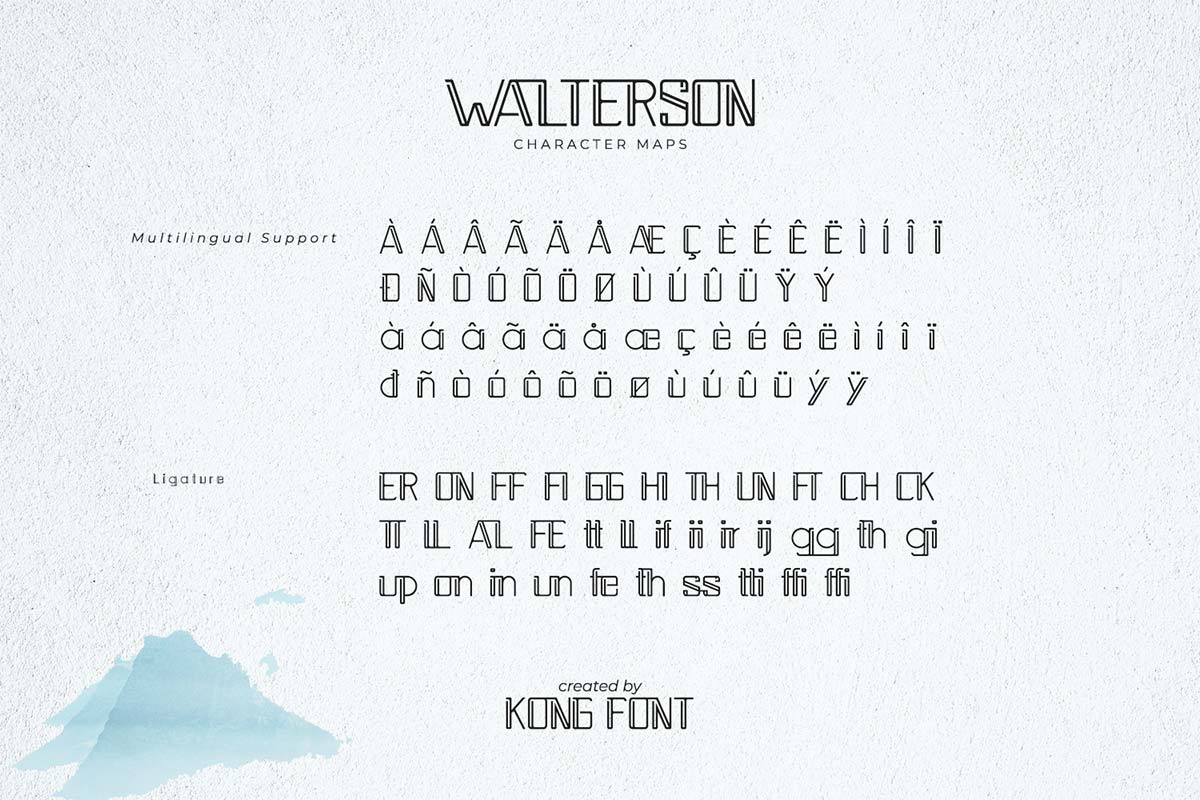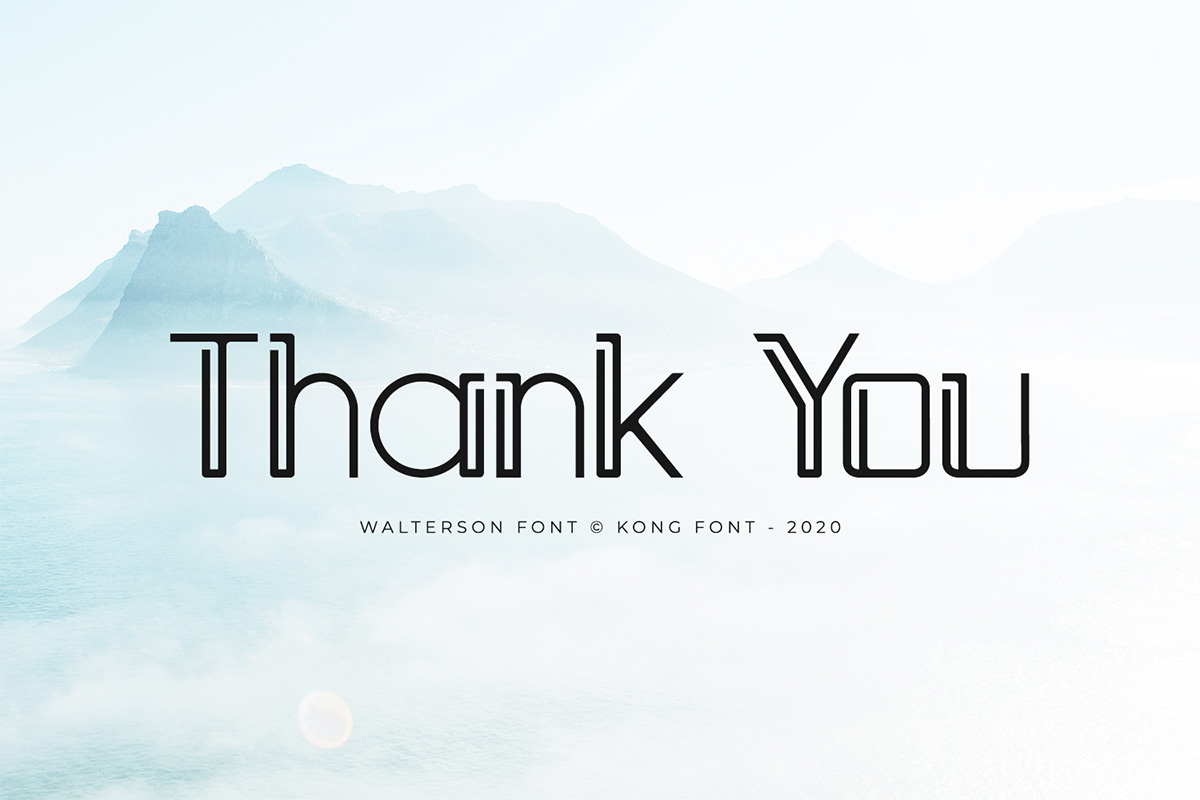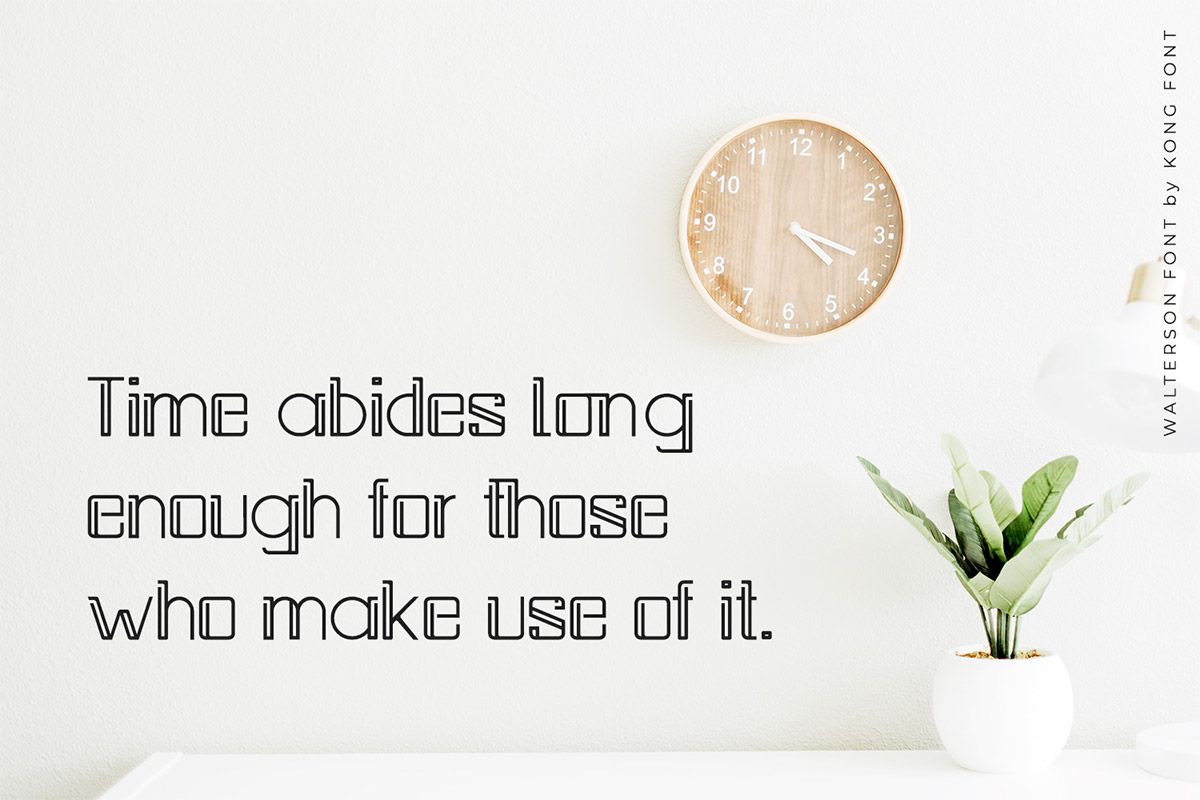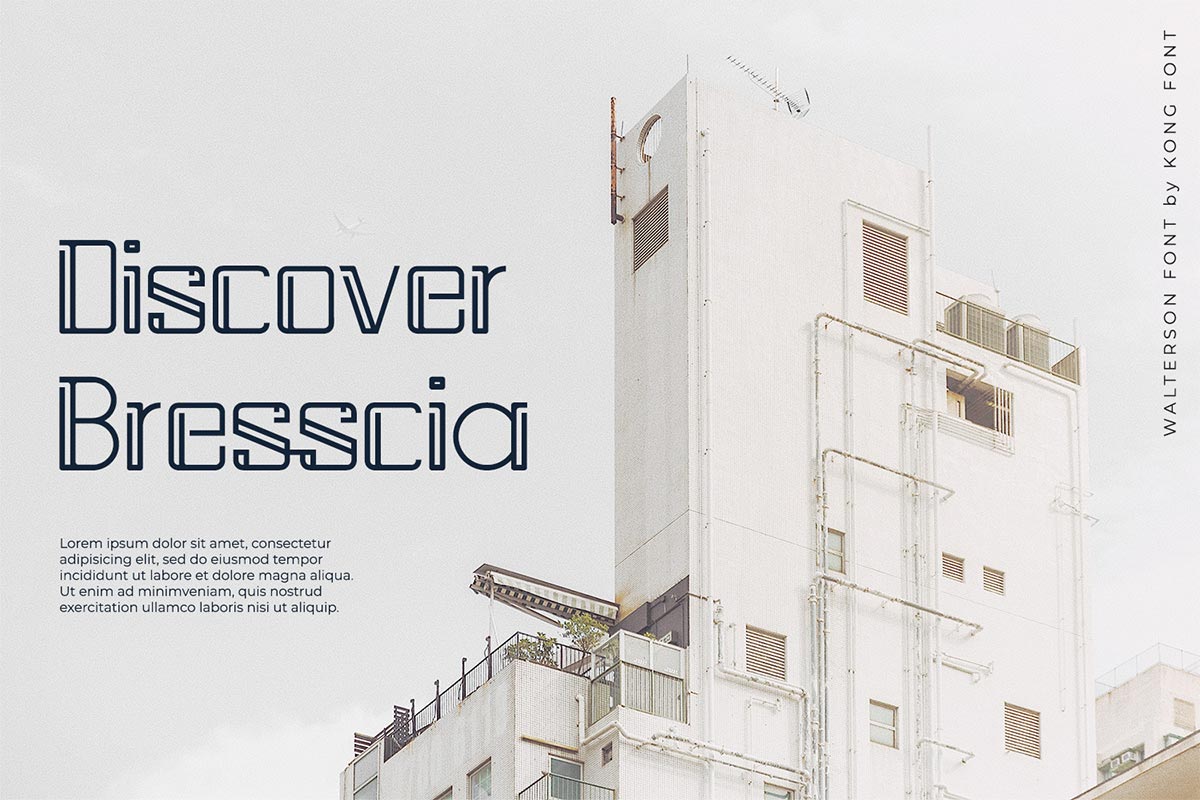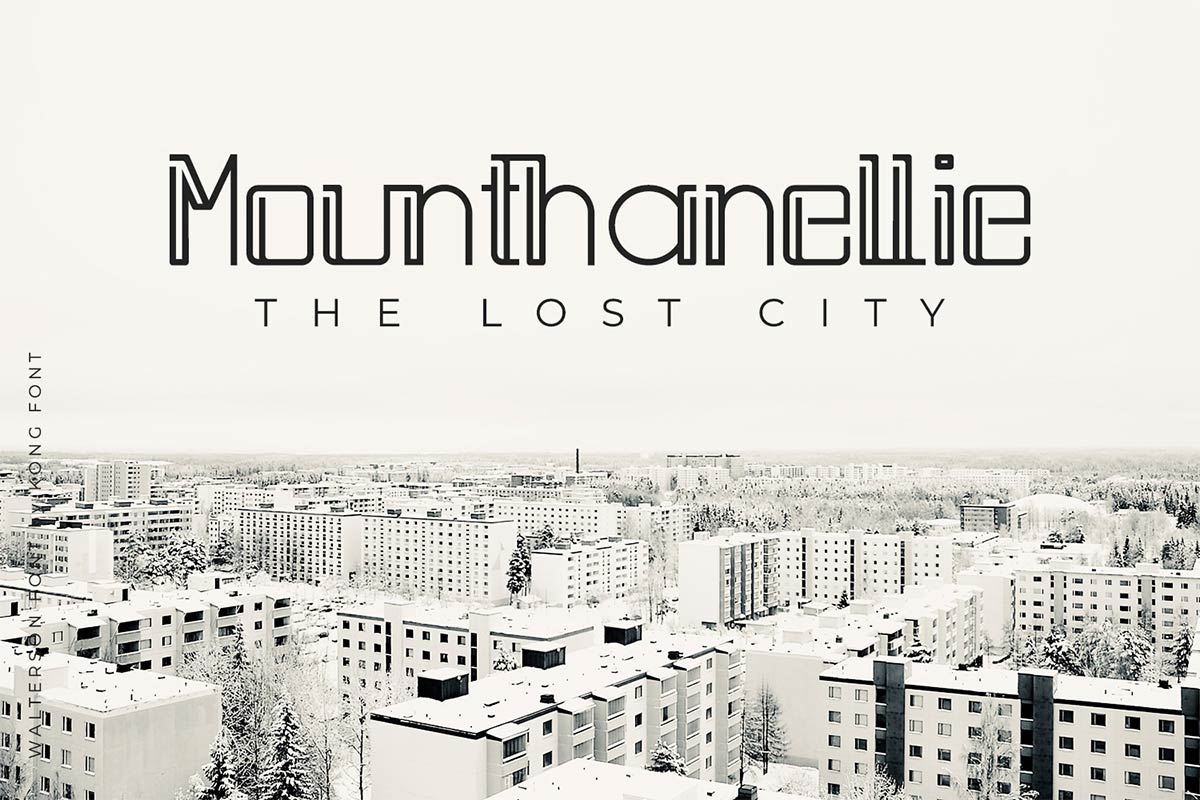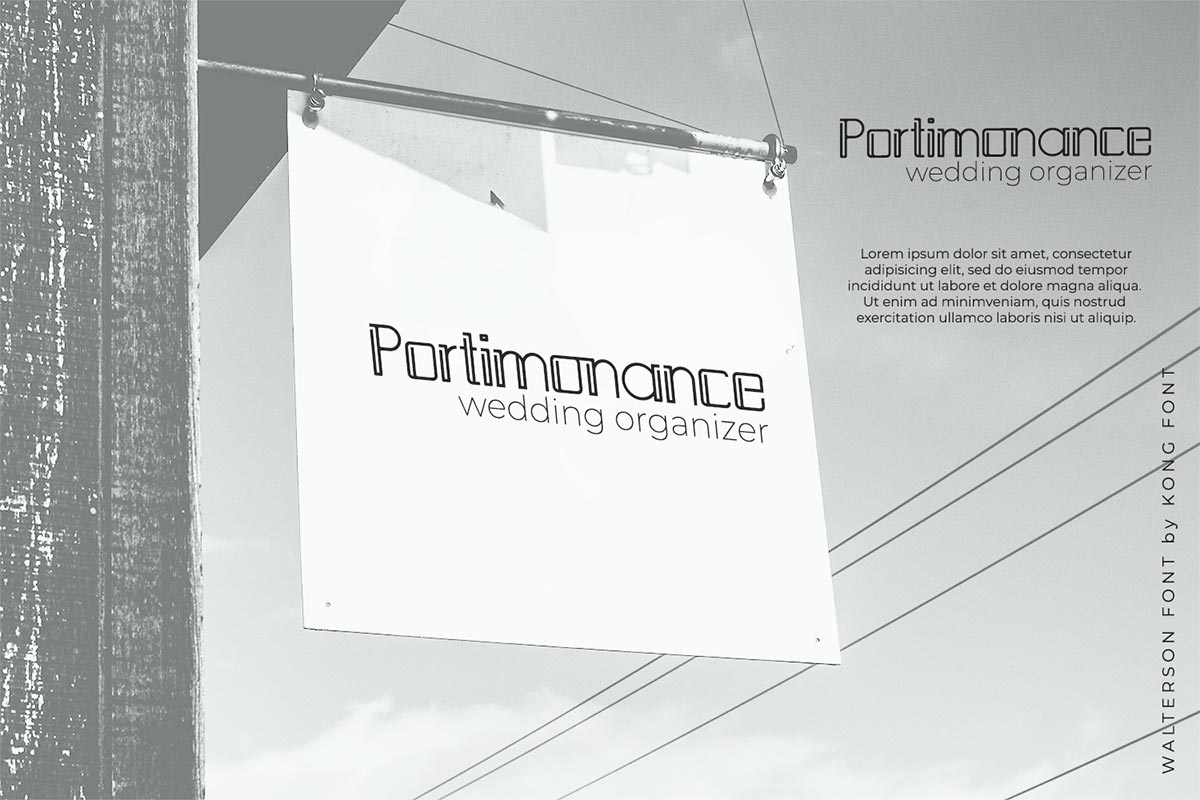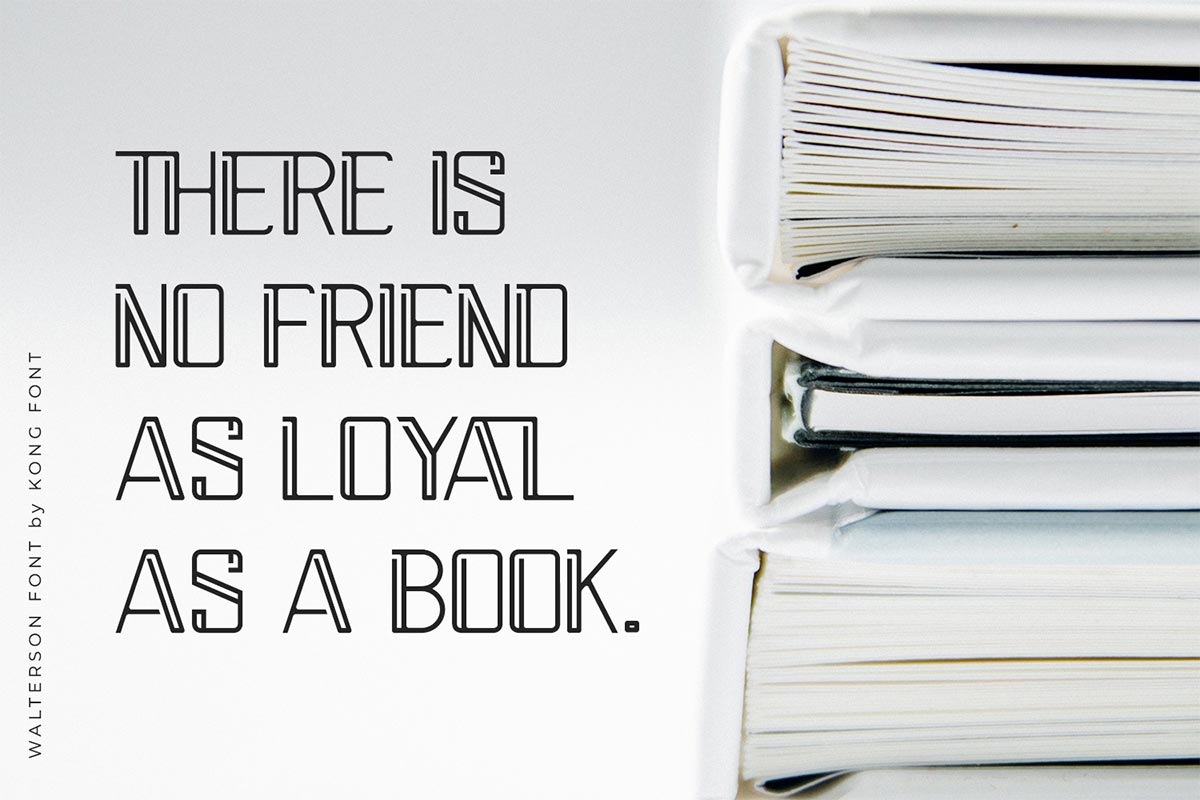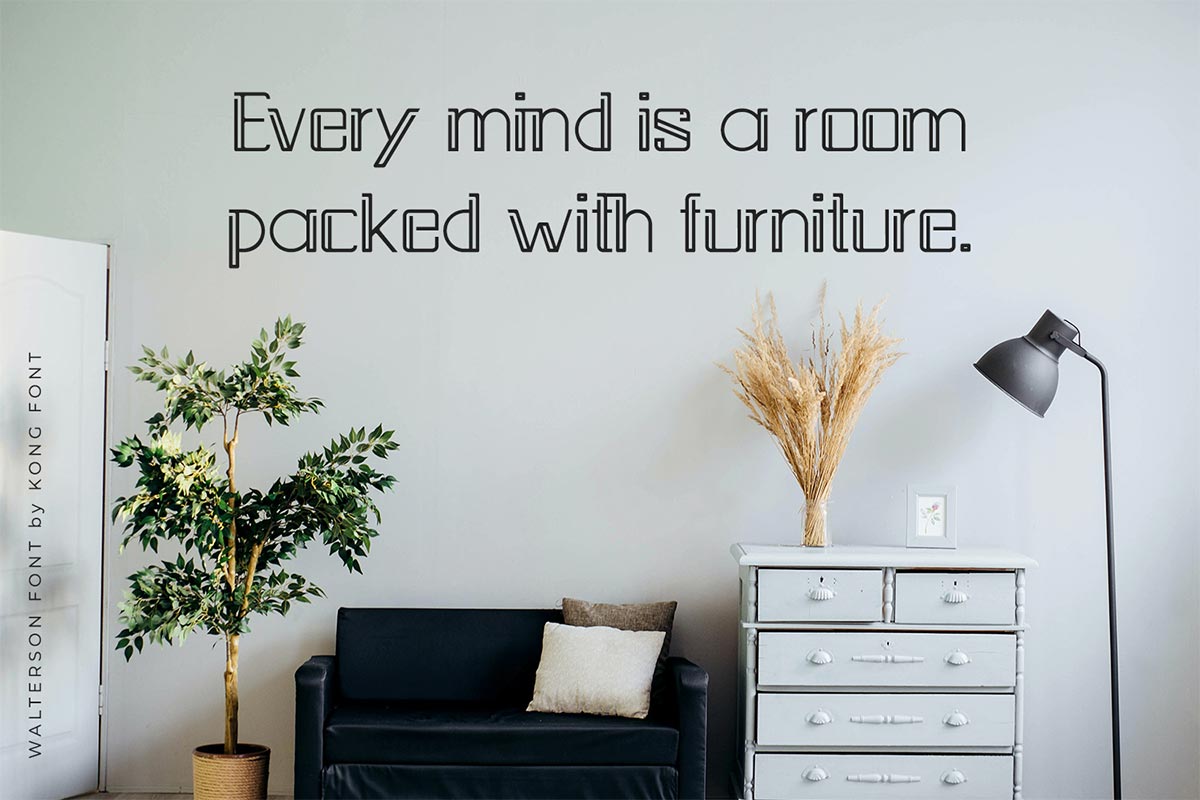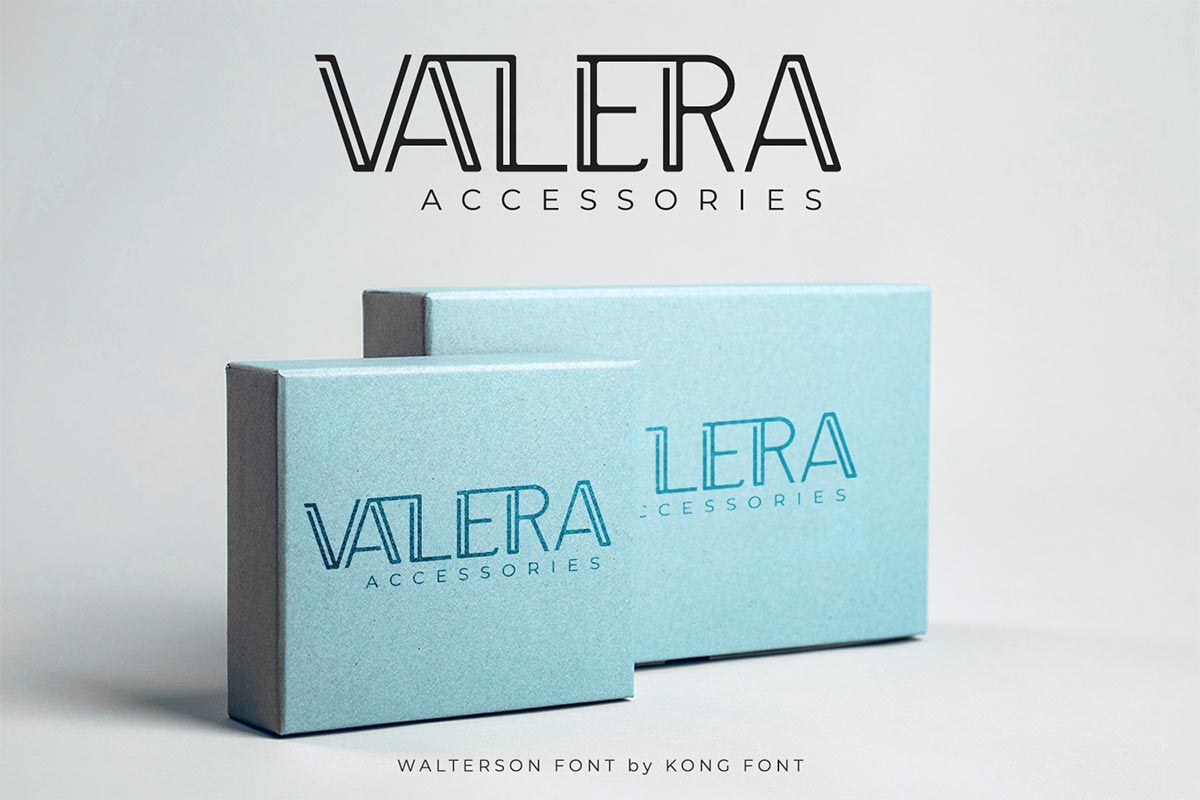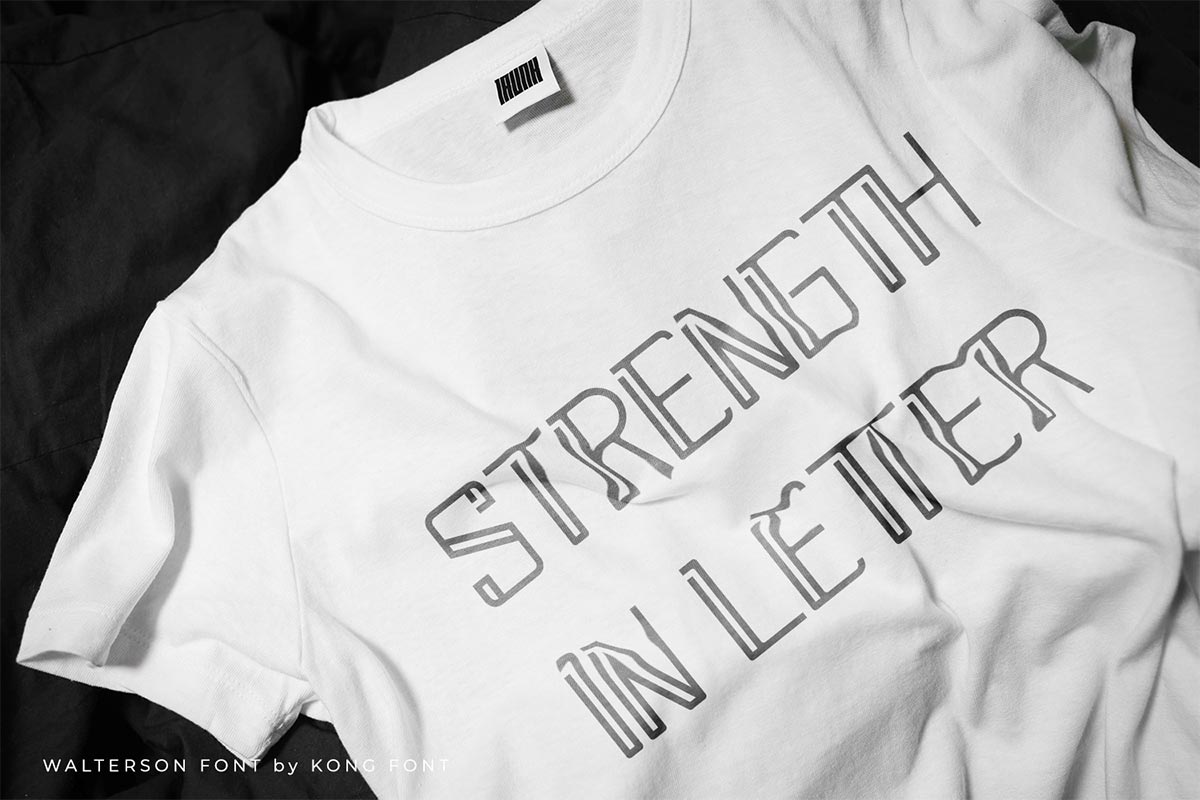
Walterson Display Font There are many different types of display fonts available as options for all of us. Walterson Modern Display Font is one of the fonts that come with a unique, modern, and classic impression. This impression makes this font different from other serif fonts. Walterson Modern Display Font has an upright shape and curves in some of the letters. In addition, Walterson Modern Display Font looks like two lines juxtaposed. The characters described above make Walterson Modern Display Font one of the best fonts that have high compatibility when used as intros containing dark, ancient, and Western film titles. Another use for this font is that can be used on the cover of a storybook or novel. This shows that Walterson Modern Display Font can be used as a digital font and printed concerning the appropriate font size. The reason is also supported by the font legibility. With the presence of Walterson Modern Display Font, it is hoped that it can increase your choices for serif font lovers in choosing the appropriate font for the object you are going to mix. Our collection of serif fonts is compatible for use as Figma fonts, Canva fonts, Freepik Fonts, and Adobe Fonts. They also work as Windows Fonts and Apple Fonts. For your social media needs, you can use and install fonts in our collection of serif fonts to use as Instagram Fonts, Facebook Fonts, and Twitter Fonts.